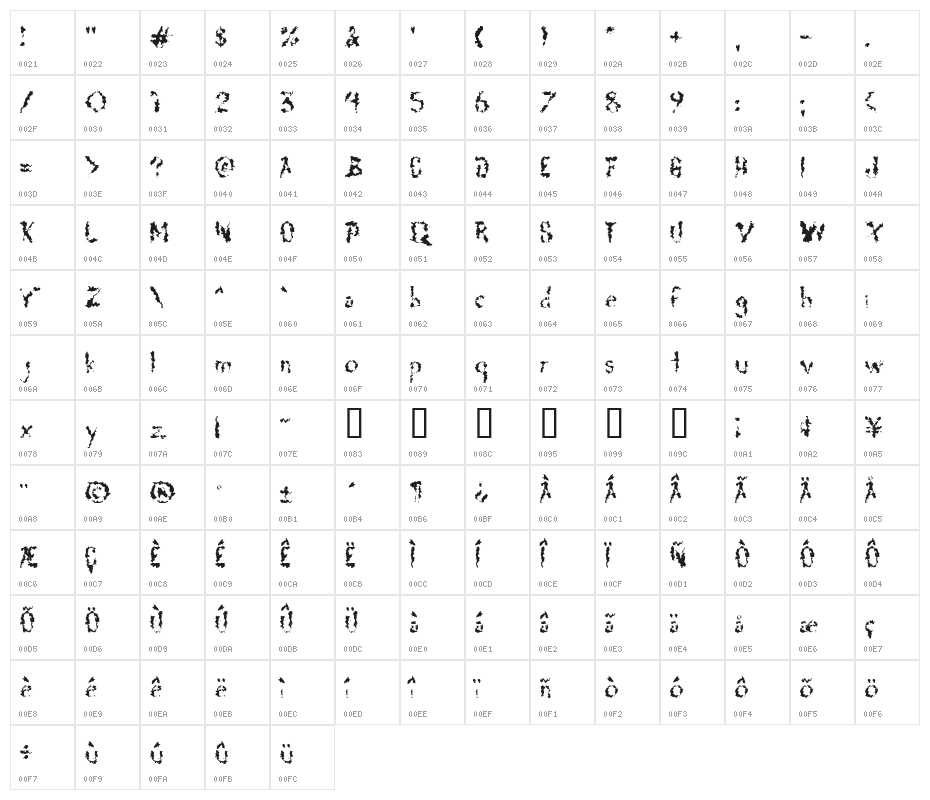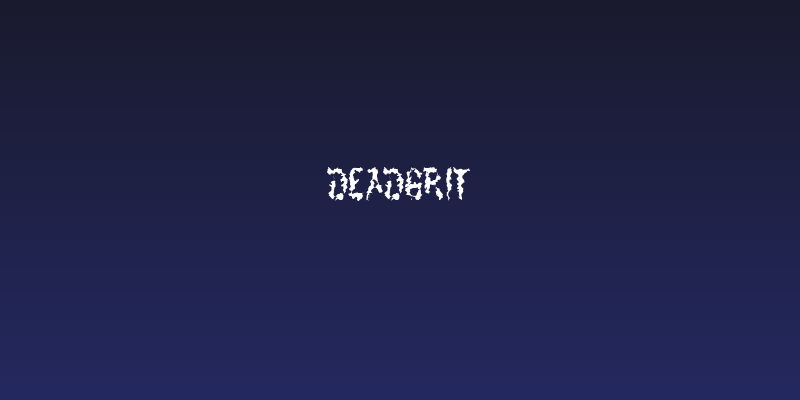
DeadGrit Font
DeadGrit Description
This font features a highly distressed and grungy texture, giving it a rugged and worn appearance. The characters appear as if they have been eroded or corroded, with irregular edges and a rough surface. This style conveys a sense of decay and rawness, making it ideal for designs that aim to evoke a gritty or industrial feel. The uppercase and lowercase letters maintain a consistent style, while the numbers and special characters follow the same distressed aesthetic, ensuring a cohesive look across all text elements.
| Overall Style | Grunge, Industrial |
| Proposed Projects | Ideal for album covers, horror movie posters, urban street art, and edgy branding projects. |